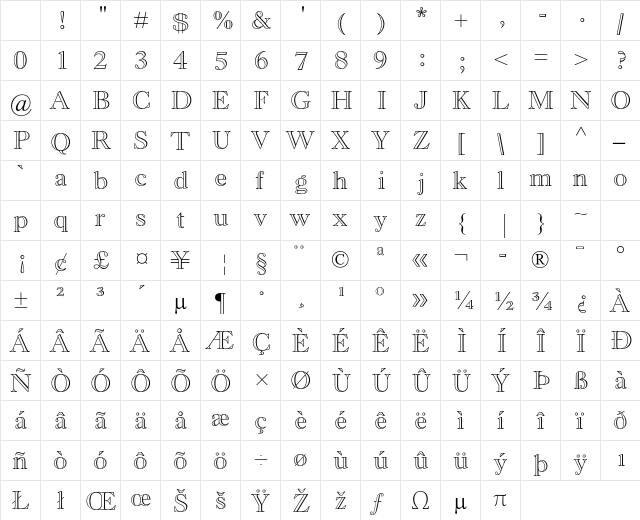
Complete Monotype Old Style MT Std Bold Outline glyph index. Displaying only characters natively supported by Monotype Old Style MT Std Bold Outline font.
Monotype Old Style MT Std is built around its visual character rather than neutral utility - its distinctive forms are designed to make an impression at display sizes. Its bold stroke weight gives it real presence on the page.
Font Pairing: Pair with a clean neutral sans-serif for body copy to let Monotype Old Style MT Std's character lead without overwhelming the composition.
Pro Tip: Use Monotype Old Style MT Std exclusively at display sizes - it was designed to be seen, not read at length. Let a neutral companion handle body copy.